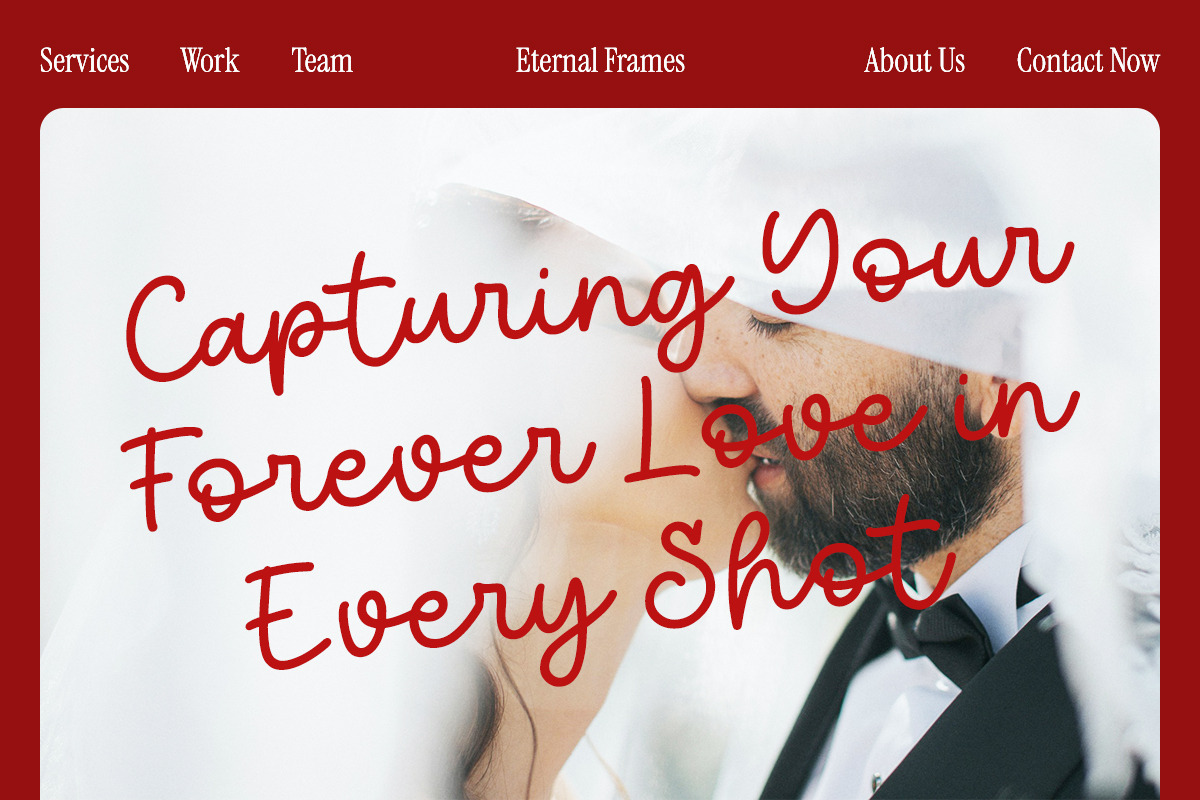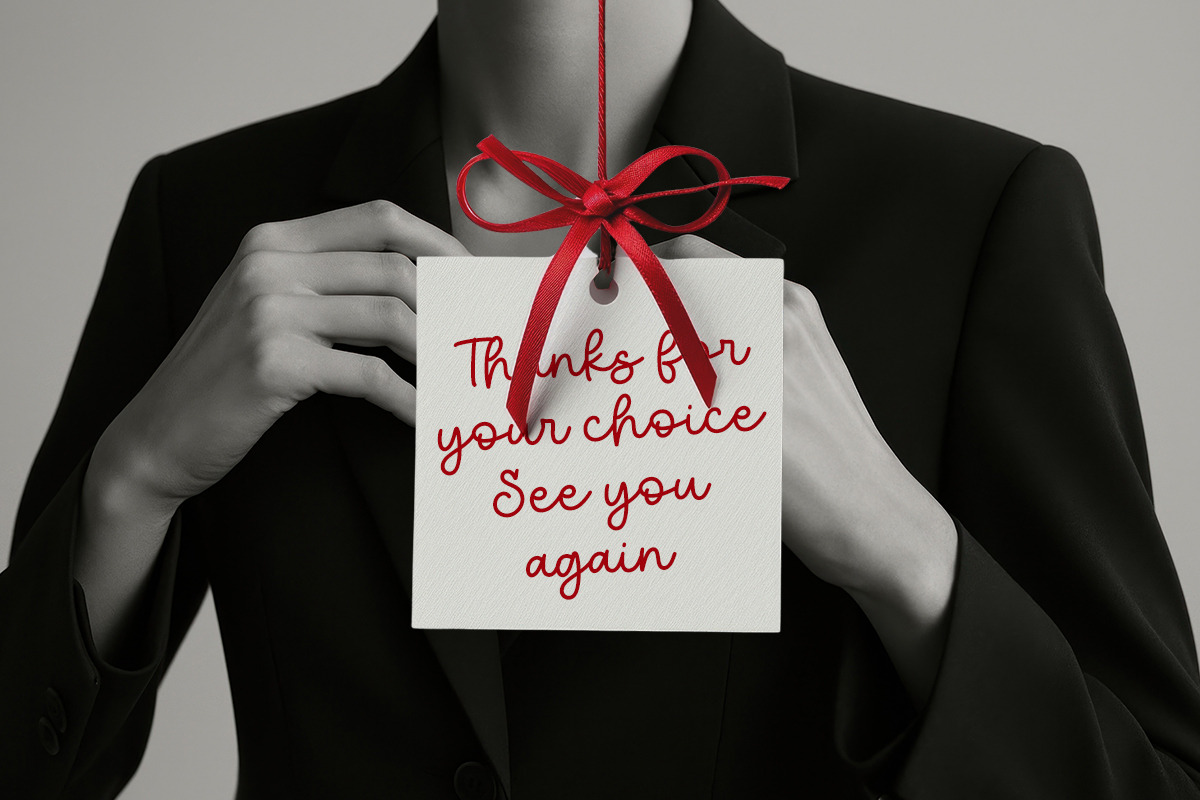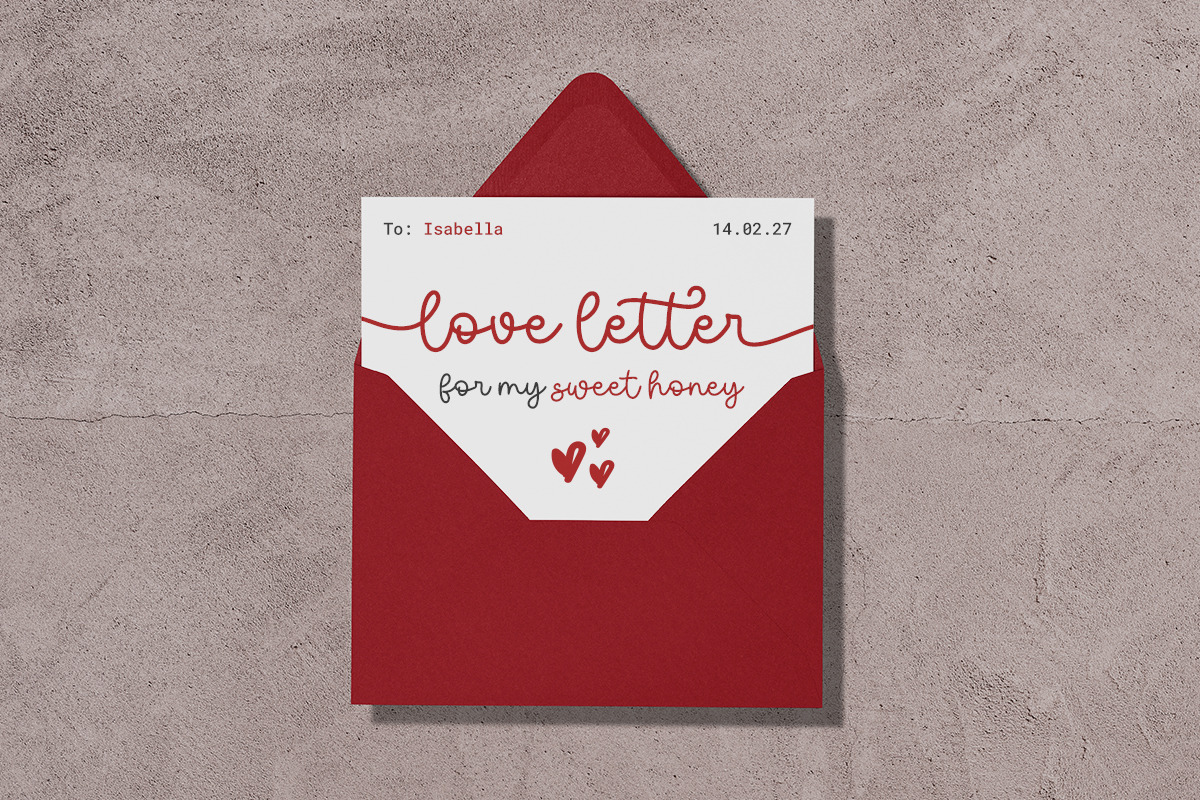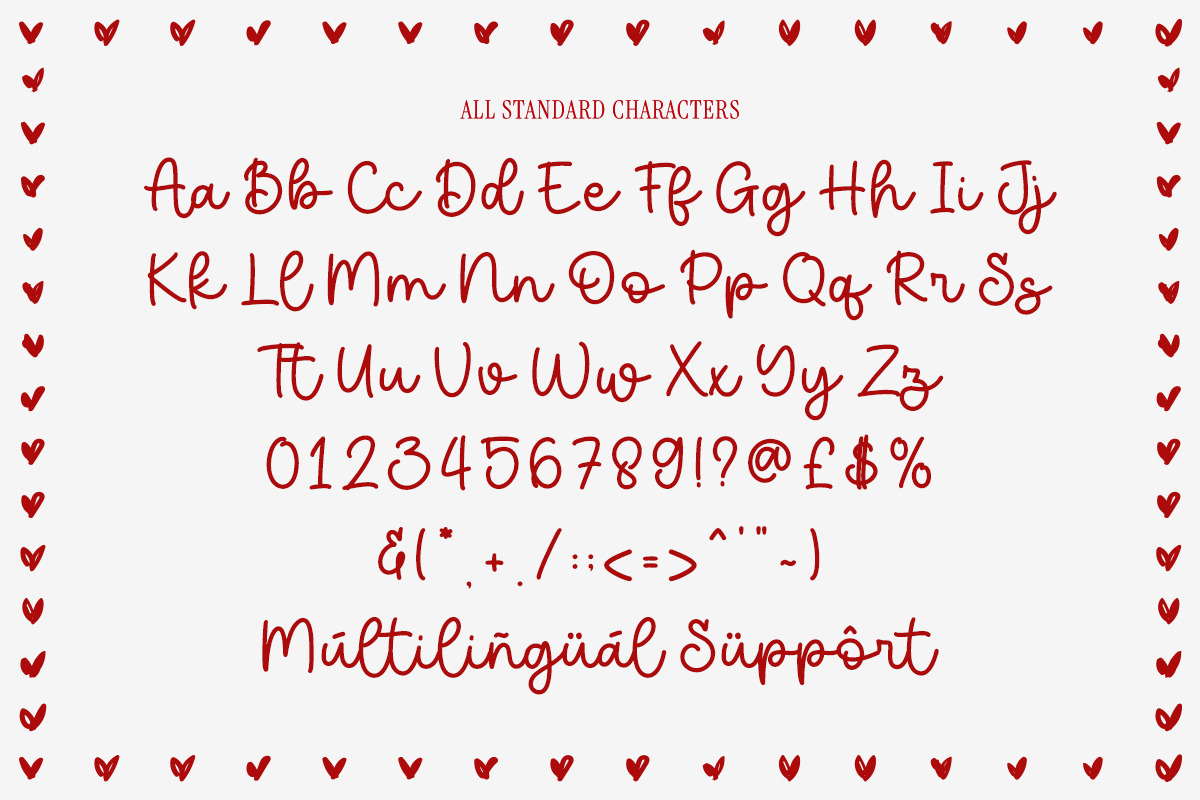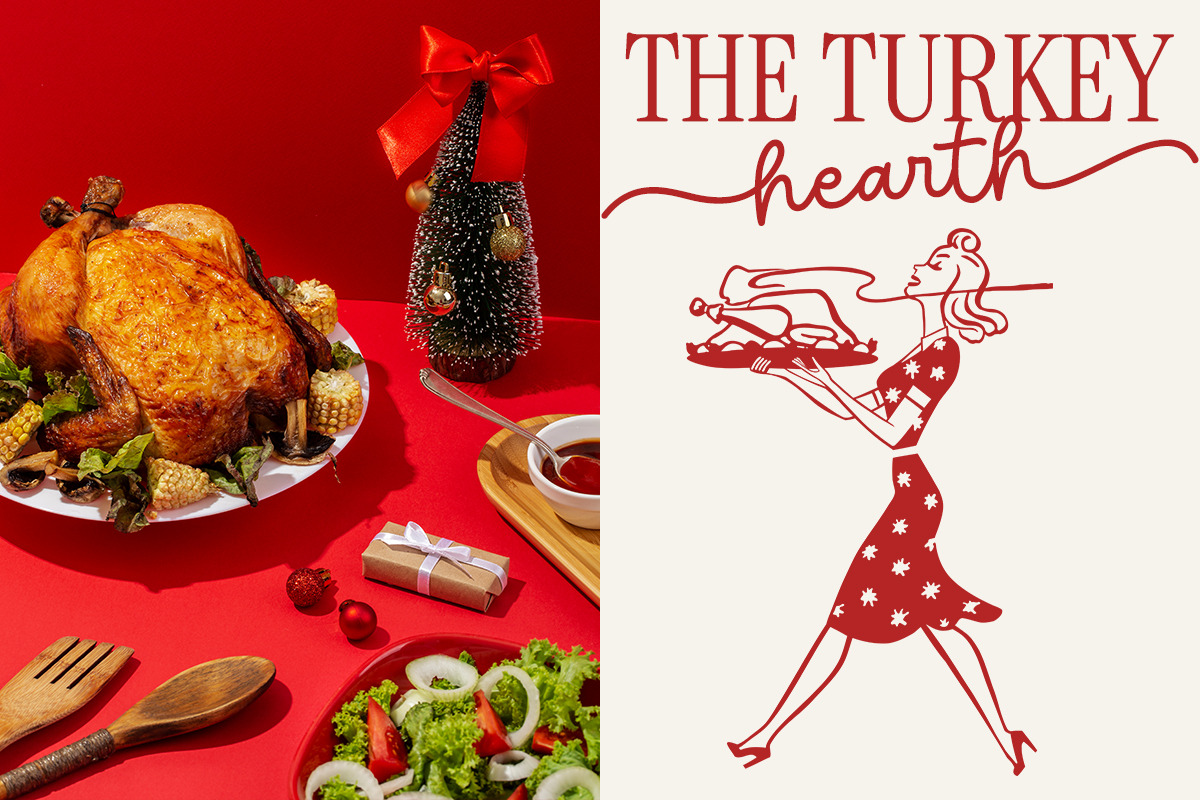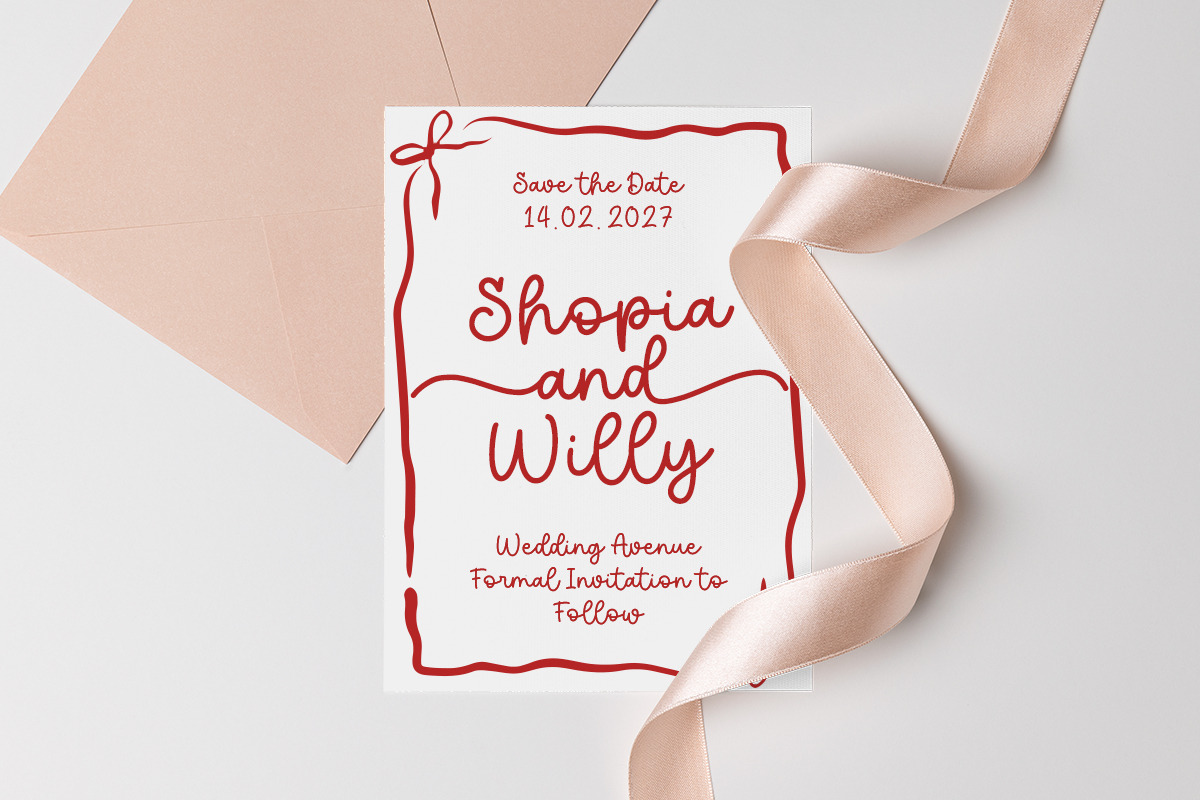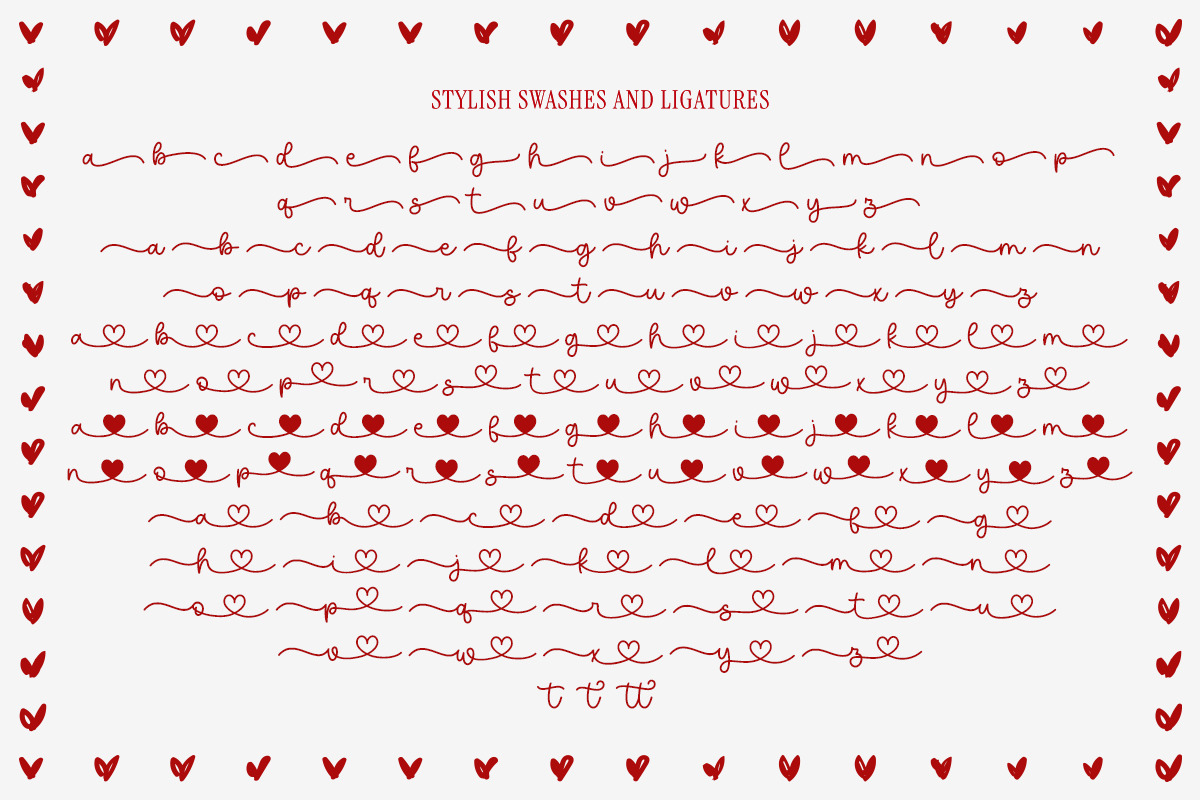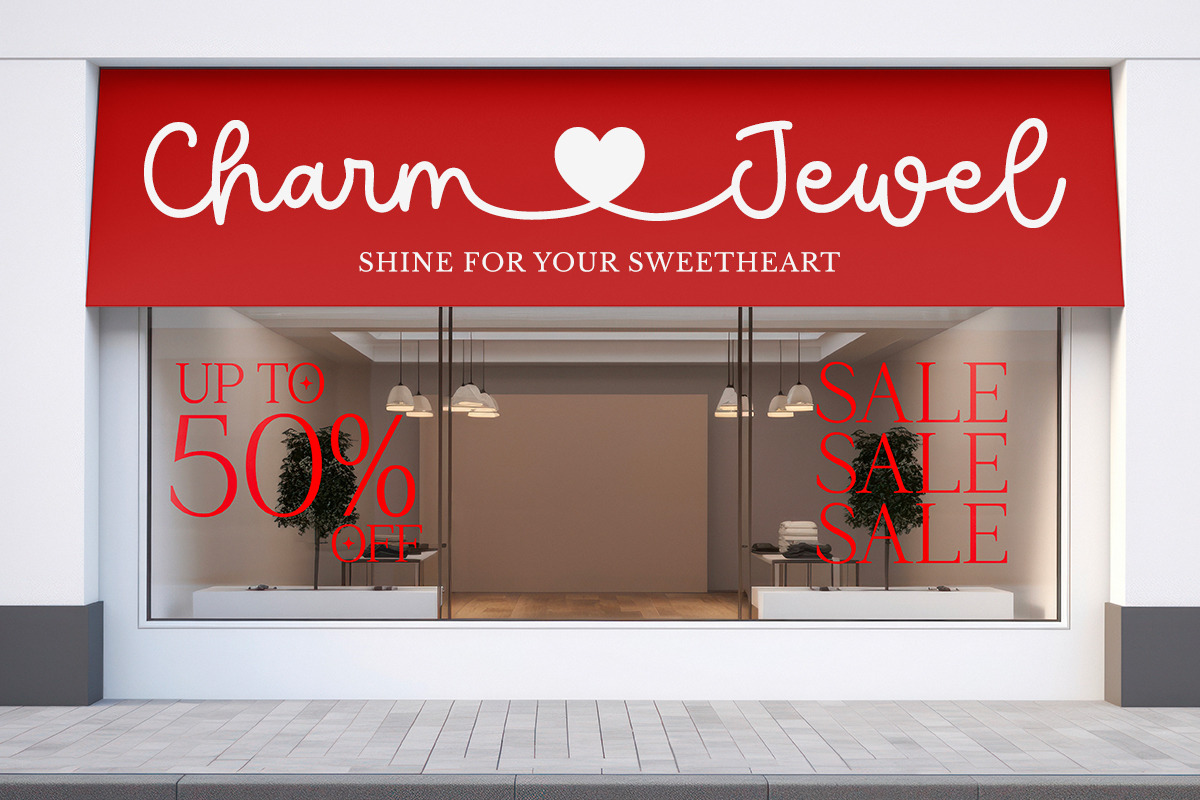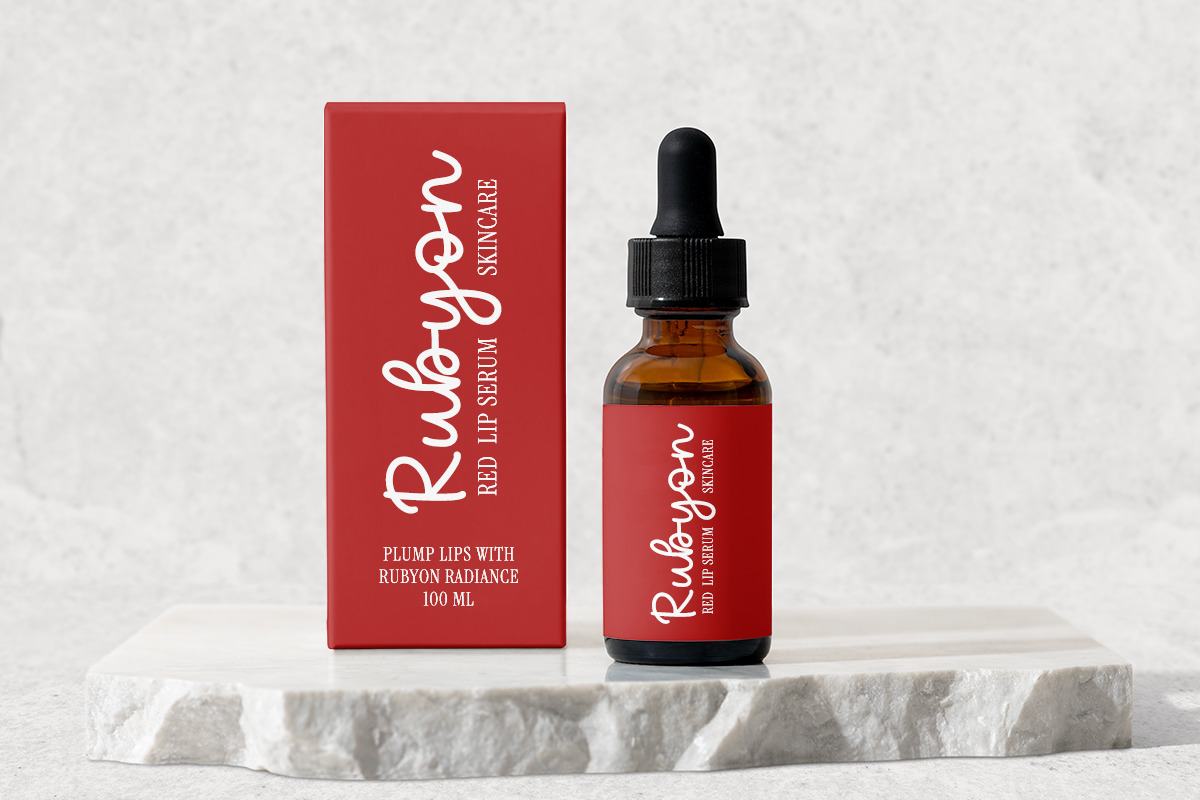
I Love You
"I Love You" font is the perfect blend of elegance and charm, ideal for any special occasion. Whether you're creating invitations, craft projects, or personalized gifts, this font adds a touch of warmth and sophistication. The handwritten script style exudes a personal and intimate feel, making it perfect for weddings, birthdays, holidays, and more.
This stunning script font features beautiful washes and tails at the beginning and end of each character, enhancing its fluid and graceful design. Its intricate swashes are thoughtfully crafted, making it the ideal choice for any project that demands attention to detail. The heart-shaped alternate swashes add a unique, romantic flair, making every letter feel special and personal.
With "I Love You," every letter seamlessly connects to the next, forming elegant and heartwarming ligatures that incorporate hearts. The creative heart-shaped links between two letters give the text an undeniable sense of harmony and love. It's an ideal choice for lettering that aims to evoke warmth and affection, making your projects feel more heartfelt.
This font is versatile, perfect for a wide range of design applications, including Cricut cutting machines, embroidery, greeting cards, scrapbooking, and holiday-themed crafts. Its suitability extends to various seasons like summer, spring, autumn, and even festive occasions like Christmas and Thanksgiving. With "I Love You," every project becomes a celebration of love, creativity, and joy.
- Standard & Multilingual glyphs.
Fonts include multilingual support for; Afrikans, Danish, Dutch, English, Estonian, Filipino, Finnish, French, Friulian, Galician, German, Gusii, Indonesian, Irish, Italian, Luxembourgish, Norwegian Bokmål, Norwegian Nynorsk, Nyankole, Oromo, Portuguese, Romansh, Rombo, Spanish, Swedish, Swiss-German, Uzbek (Latin) Scottish, Swiss, etc.